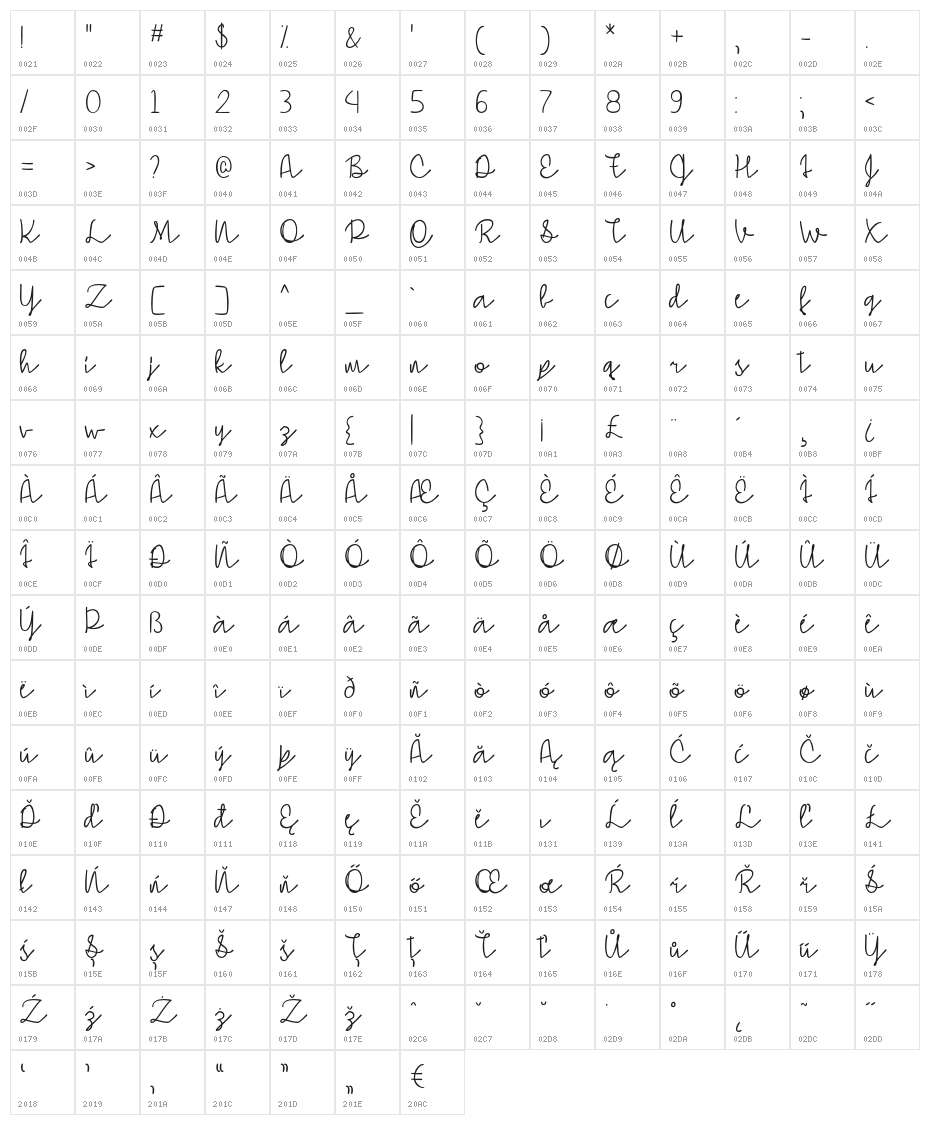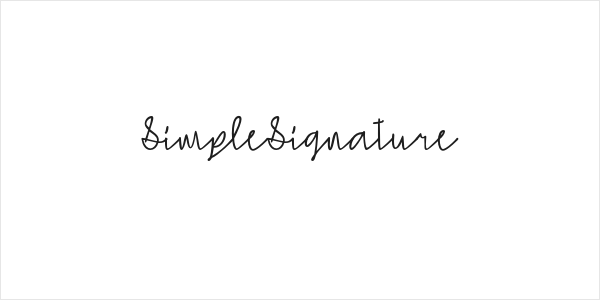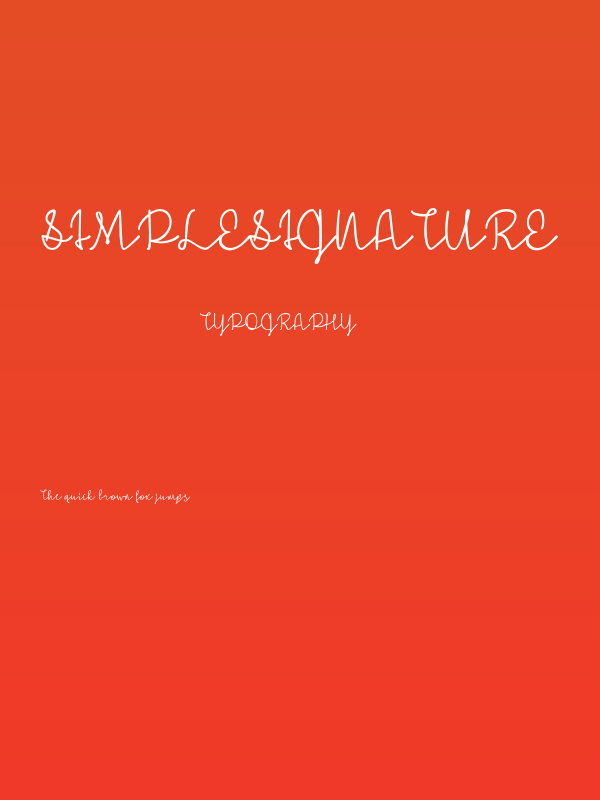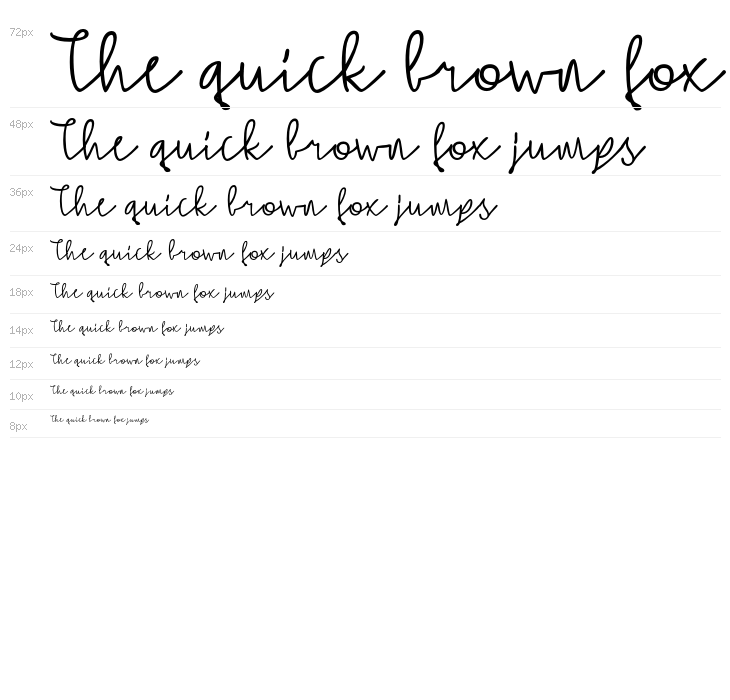
SimpleSignature Font
SimpleSignature Description
This font exudes a handwritten, cursive style that mimics the fluidity and elegance of a personal signature. The characters are interconnected with smooth, flowing lines, giving it a natural and organic feel. The uppercase letters maintain a consistent height, while the lowercase letters feature gentle loops and curves, enhancing the script-like appearance. Numbers and special characters are designed to complement the overall aesthetic, ensuring a cohesive look across all elements. The font's casual yet sophisticated style makes it suitable for a variety of applications where a personal touch is desired.
| Overall Style | Casual, Elegant |
| Proposed Projects | Ideal for personal branding, invitations, greeting cards, and logo design. |